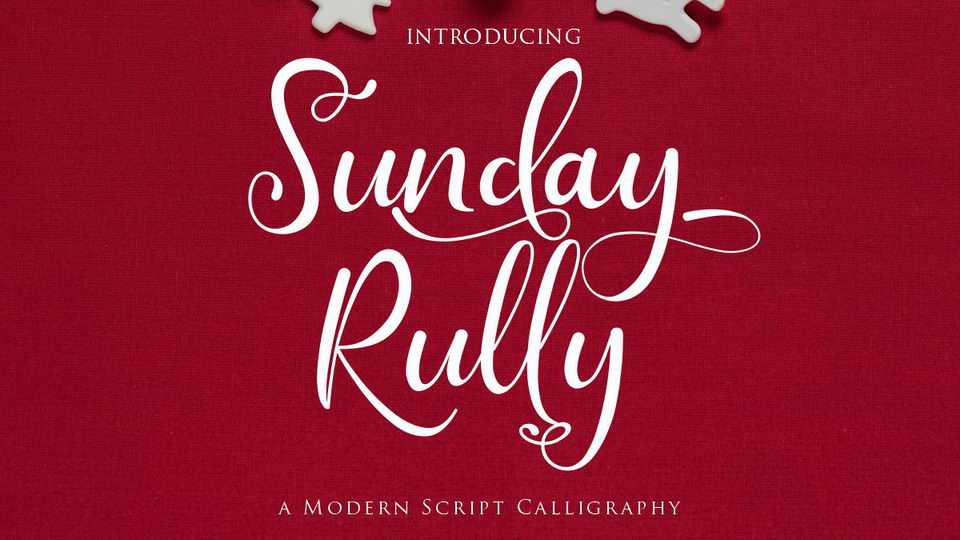
Download Sunday Rully font, a modern calligraphy script with a lot of stylistic alternates to create natural, elegant look that perfect for any awesome projects.
Designer: Gilar Studio